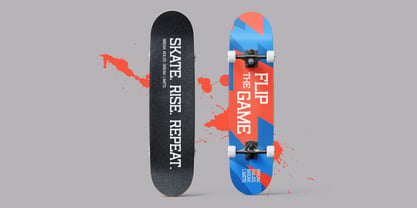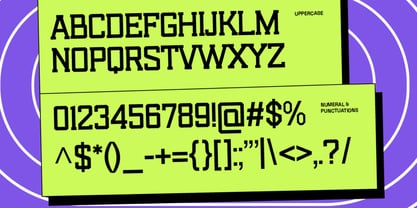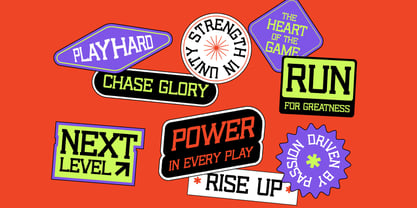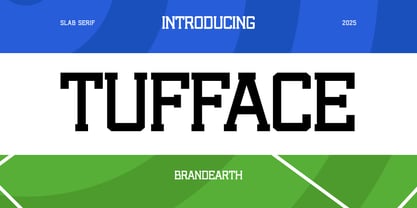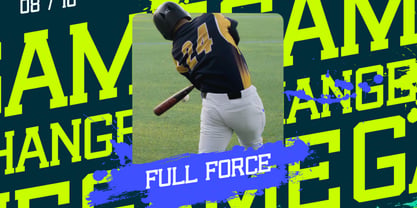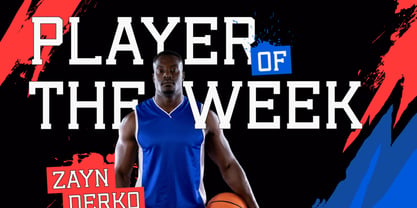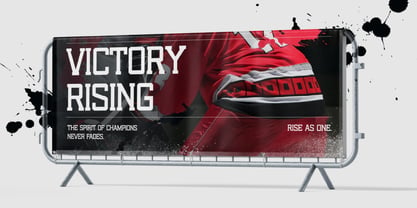
Tufface
by Brandearth
The Tufface Font Family was designed by Moch Rasjid Wiyono and published by Brandearth. Tufface contains 1 styles. More about this family
Tufface Slab Serif Font is a bold display typeface built with sturdy slab serifs and geometric letterforms that project strength, precision, and impact. Designed exclusively with uppercase letters, numerals, and punctuation, it delivers clarity and confidence across digital and print media. Relevance and Use Cases is perfect for sports branding, poster design, logo design, merchandise, magazine titles, esports graphics, packaging, display typography, event promotion, banner design, signage, creative campaigns, and advertising. It also works well for social media graphics, portfolio presentations, typographic artwork, bold website headers.
Designers: Moch Rasjid Wiyono
Foundry: Brandearth